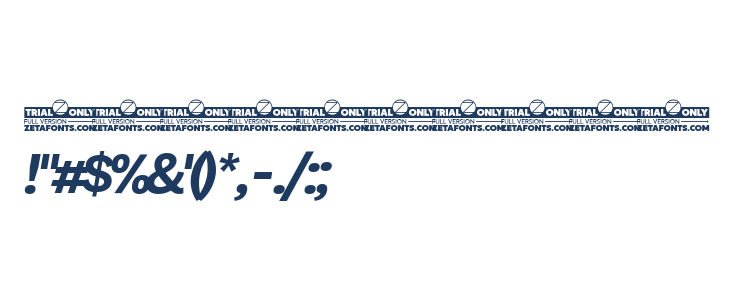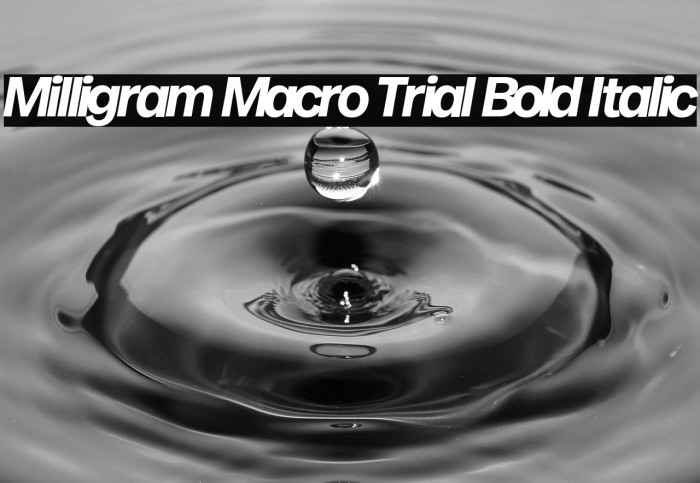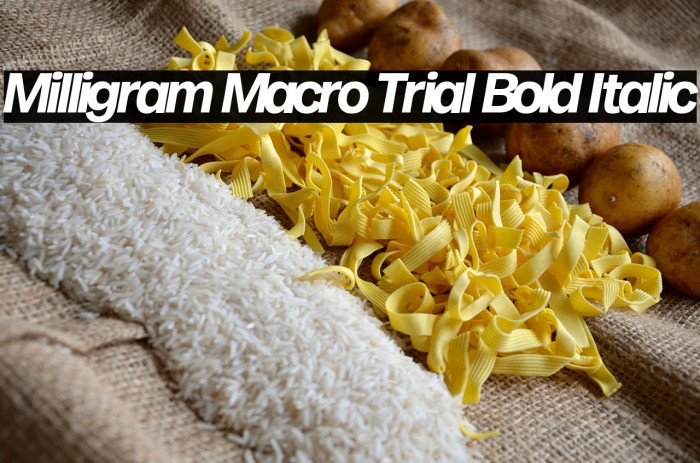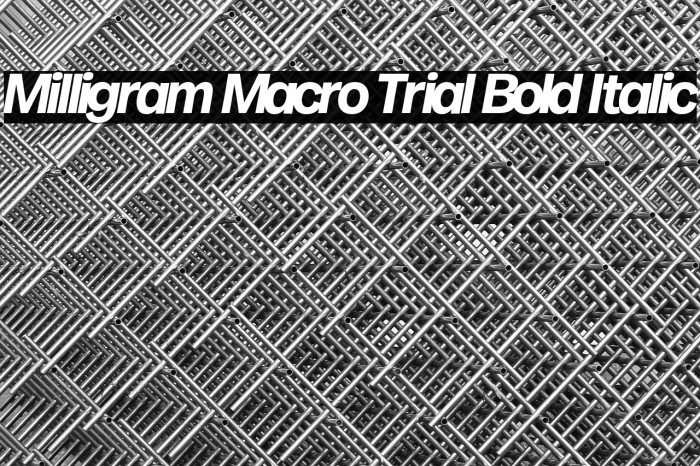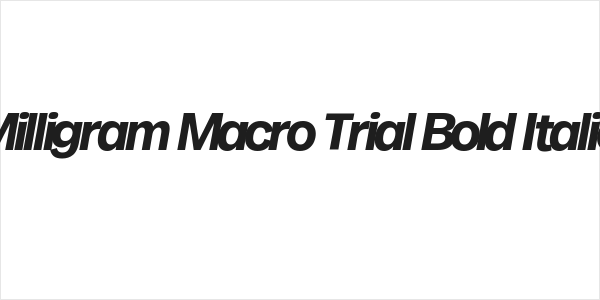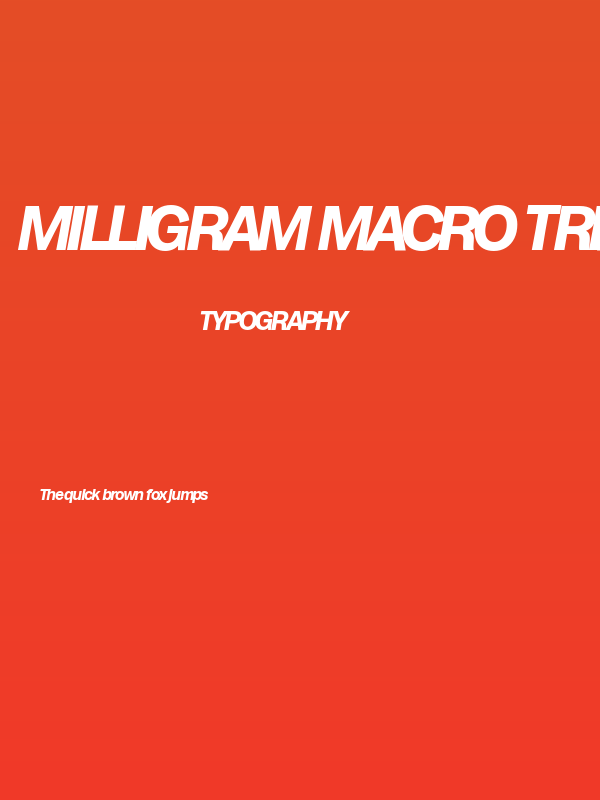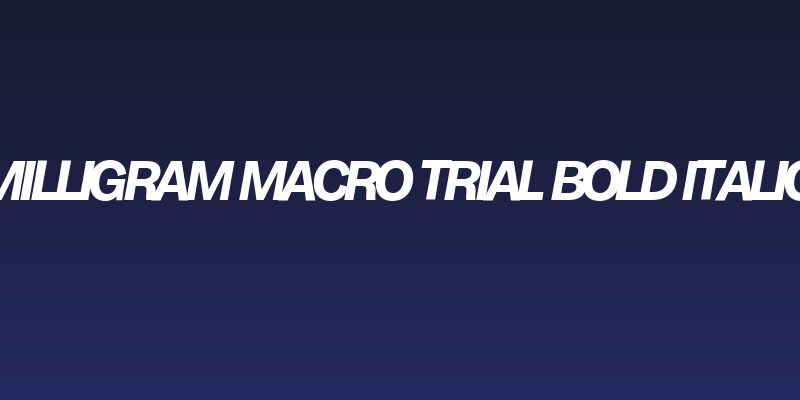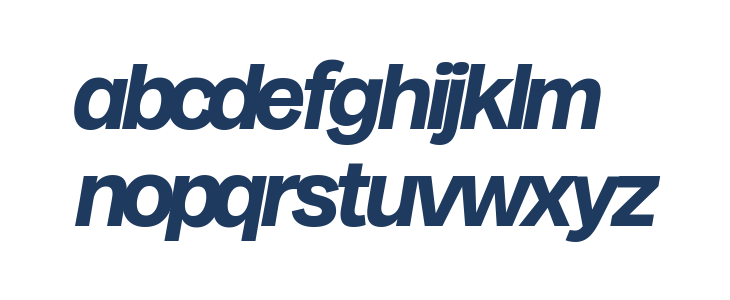
Milligram Macro Trial Bold Italic Font
Milligram Macro Trial Bold Italic Description
This font exhibits a bold and italicized style, characterized by its strong, slanted letterforms that convey a sense of dynamism and modernity. The uppercase and lowercase letters maintain a consistent weight, providing a cohesive look across the alphabet. The numerals and special characters are designed to match the boldness and slant of the letters, ensuring uniformity throughout. The font's design is clean and sans-serif, making it suitable for contemporary applications where clarity and impact are desired. Its italic nature adds a touch of elegance and movement, making it ideal for headlines or titles that need to stand out.